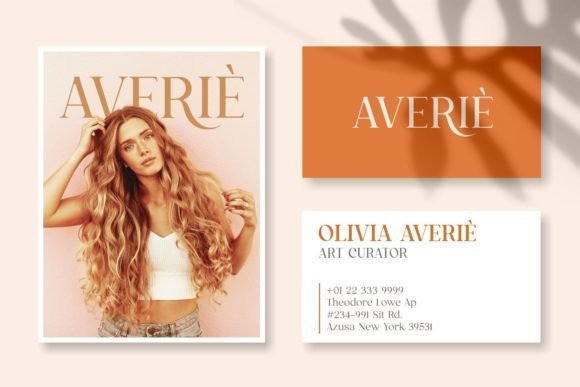
Qualux Font
Qualux Font a luxurious serif font that evokes the essence of a bygone era. Its elegant curves and intricate details exude sophistication and class. This vintage-inspired typeface is perfect for high-end branding, editorial design, and any project that requires a touch of old-world charm. Let Qualux’s timeless beauty elevate your creations.